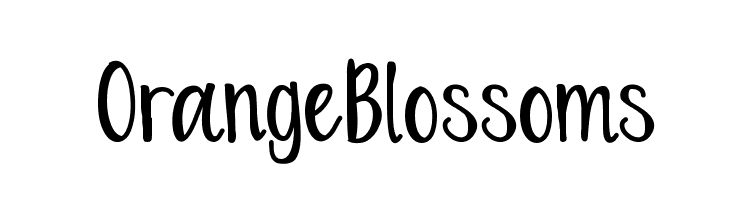
Chaque police phare se distingue par équilibre, lisibilité et polyvalence. Vous trouverez des sans‑serifs modernes, des scripts élégantes, des serifs vintage et des displays minimalistes.
An elegant and artistic font with elongated letterforms and decorative elements.
A bold, geometric font with a pixelated, retro digital style.
A bold, geometric, and condensed font with sharp angles and a strong visual impact.
A playful, hand-drawn outlined font with a whimsical and creative style.
A bold, futuristic font with geometric, block-like characters.
A bold, geometric font with sharp angles and a futuristic style.
A modern, ultra-condensed bold italic font with high contrast and tight spacing.
A playful and modern font with bold dots and thin connecting lines.
A whimsical, hand-drawn font with playful, irregular strokes.
A highly decorative and abstract font with intricate geometric patterns.
A playful, handwritten font with a whimsical and casual style.
A dynamic, cursive script font with fluid strokes and artistic flair.
A playful, handwritten font with a casual and friendly vibe.
A bold, dynamic font with thick strokes and unique serifs, perfect for impactful designs.
A flowing, cursive script font with elegant loops and a modern touch.
A bold, italic, and modern font with a dynamic and energetic style.
A bold, 3D outline font with a futuristic and geometric style.
A modern, sleek font with elongated, rounded characters and a futuristic feel.
A playful, hand-drawn font with irregular, whimsical characters.
A futuristic, italicized font with geometric precision and a dynamic haze effect.
A bold, angular, and condensed geometric font with a futuristic style.
A bold, geometric font with a structured and industrial style.
An elegant script font with flowing, decorative swashes and loops.
A playful and rounded font with a modern, whimsical style.
A bold, expressive handwritten font with fluid, cursive letterforms.
A nautical dingbat font with ship and boat illustrations.